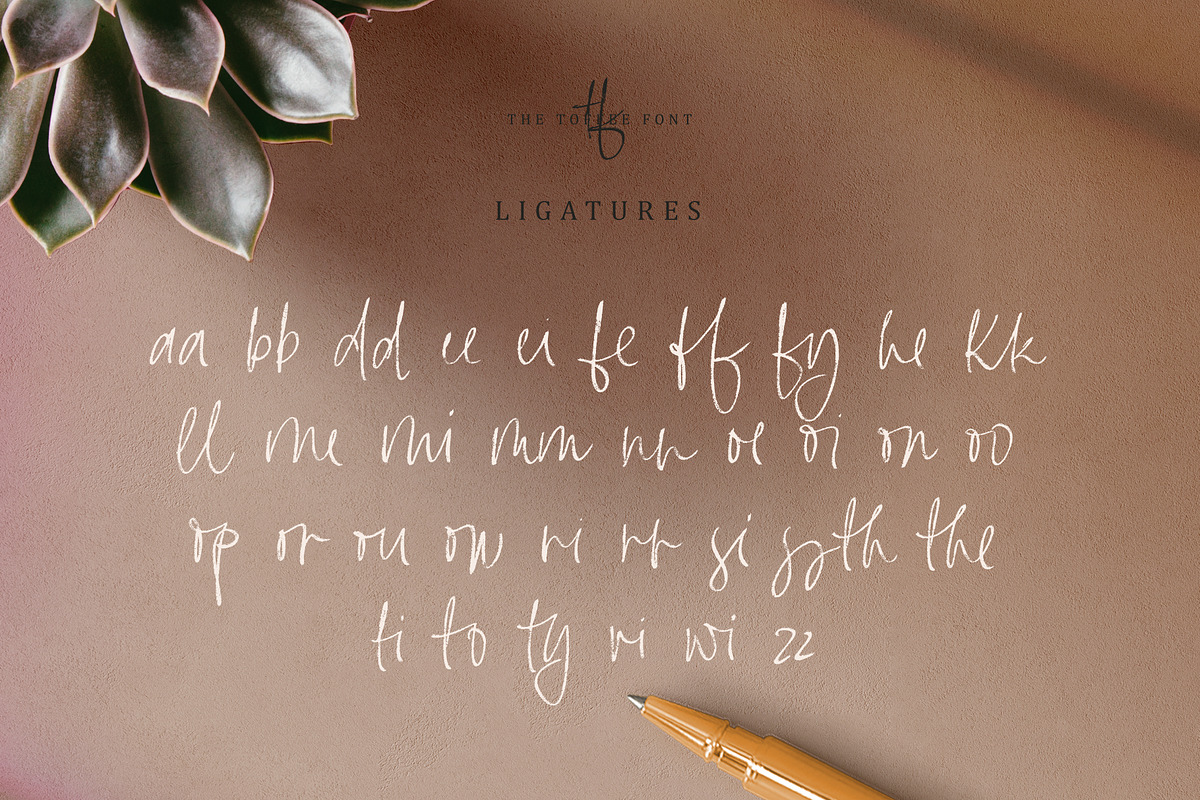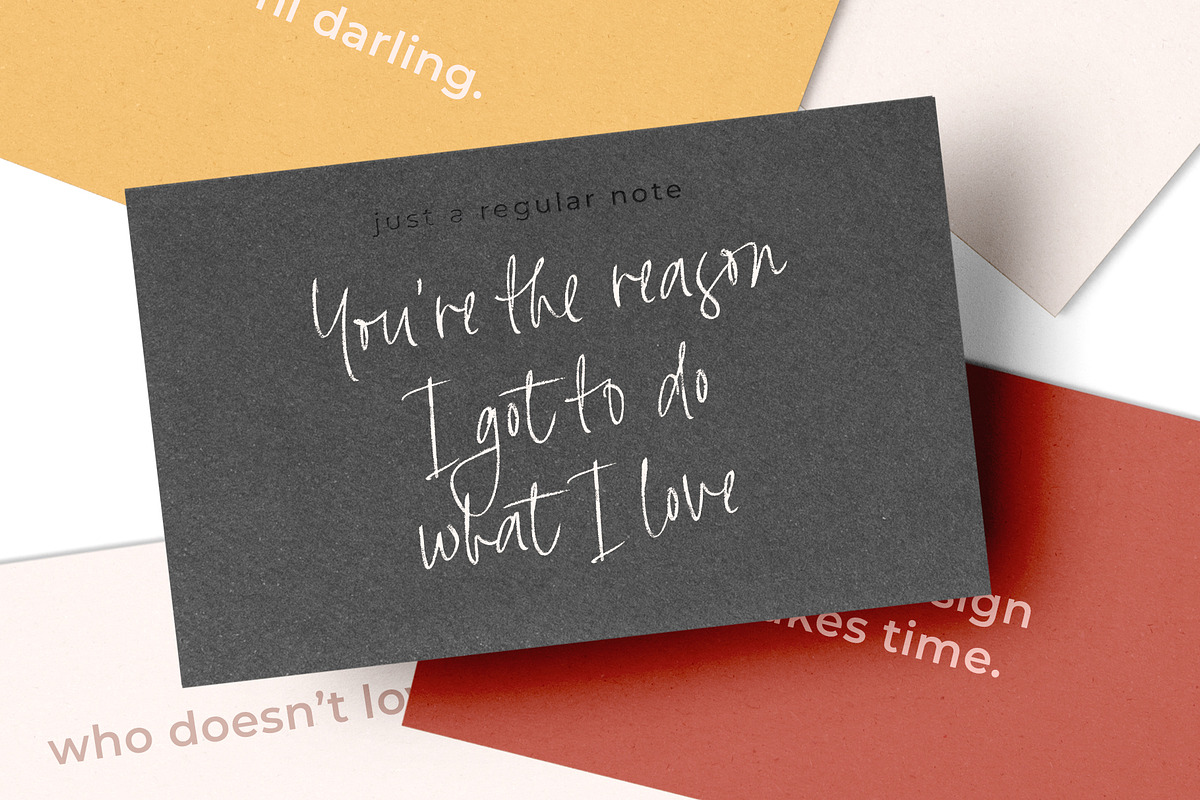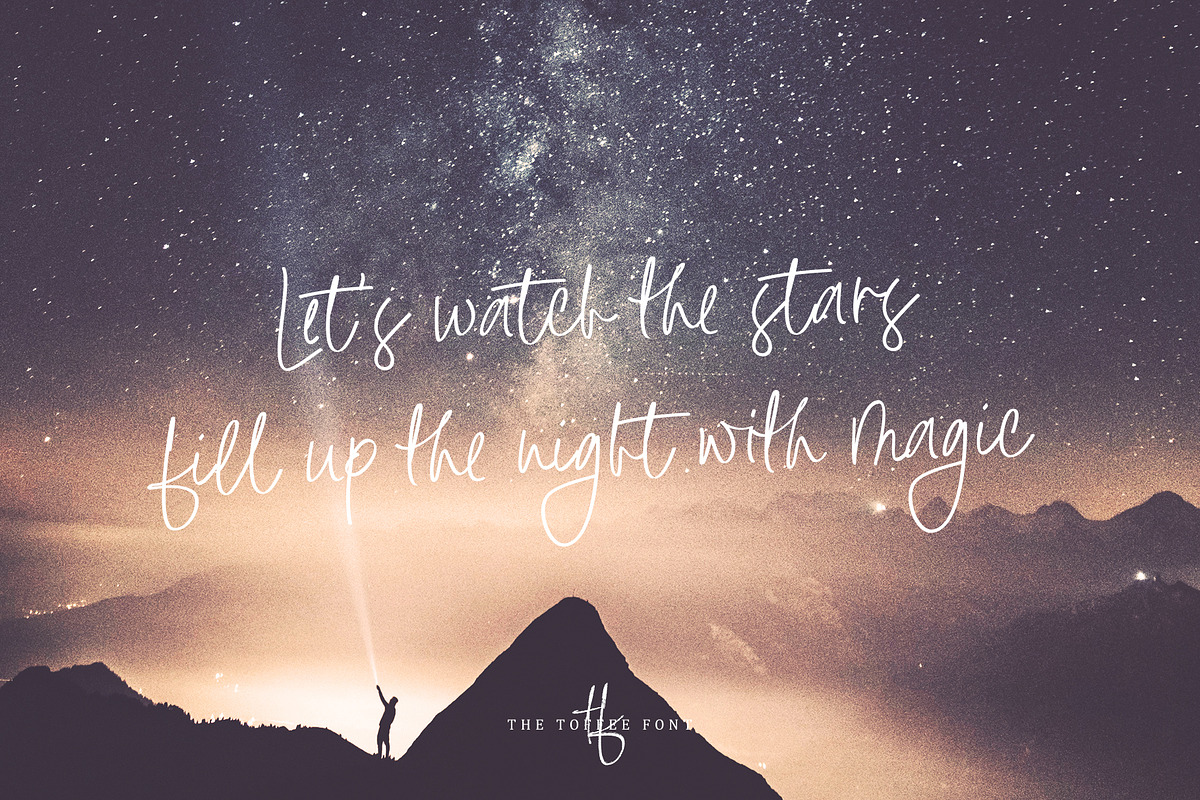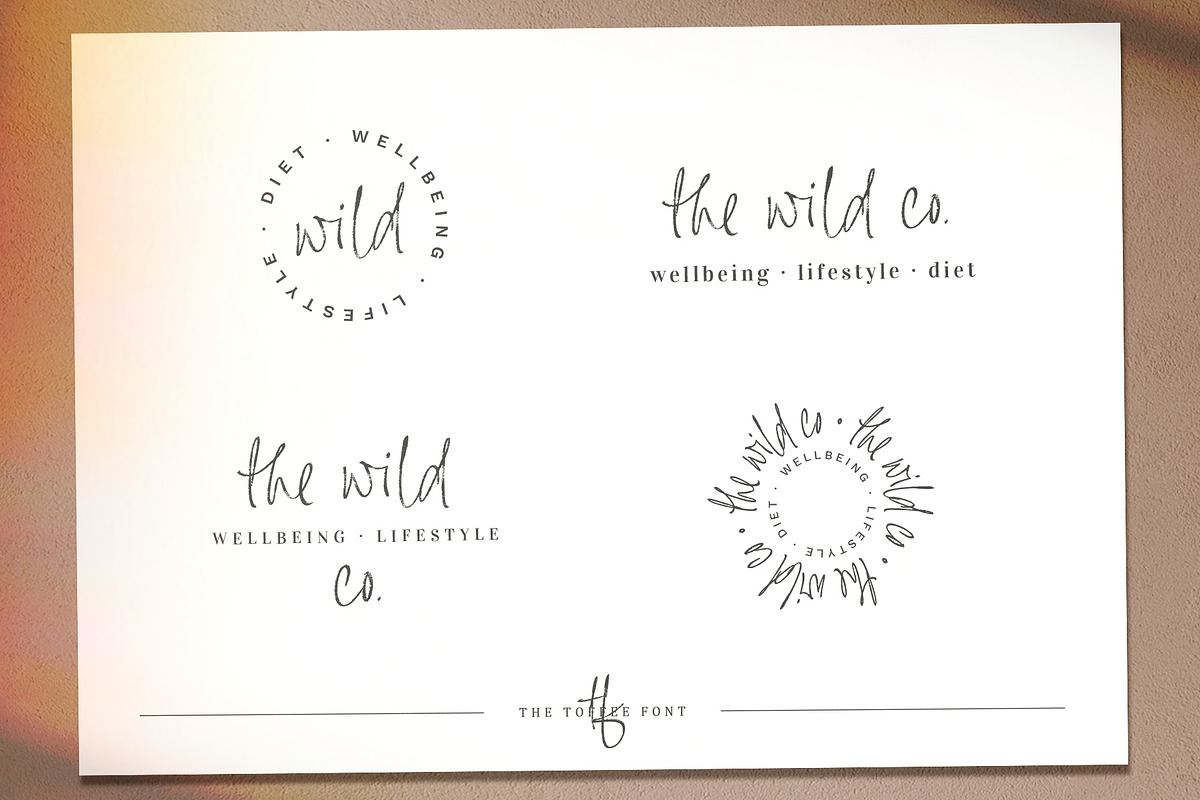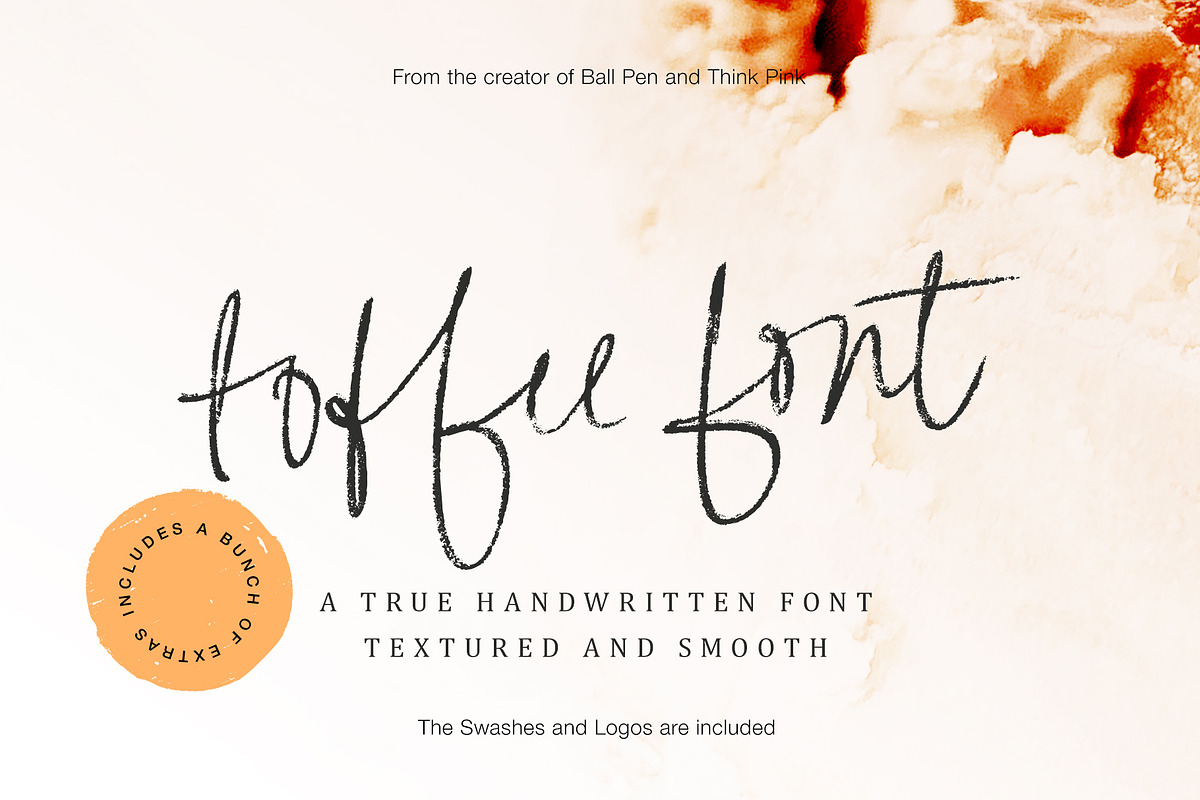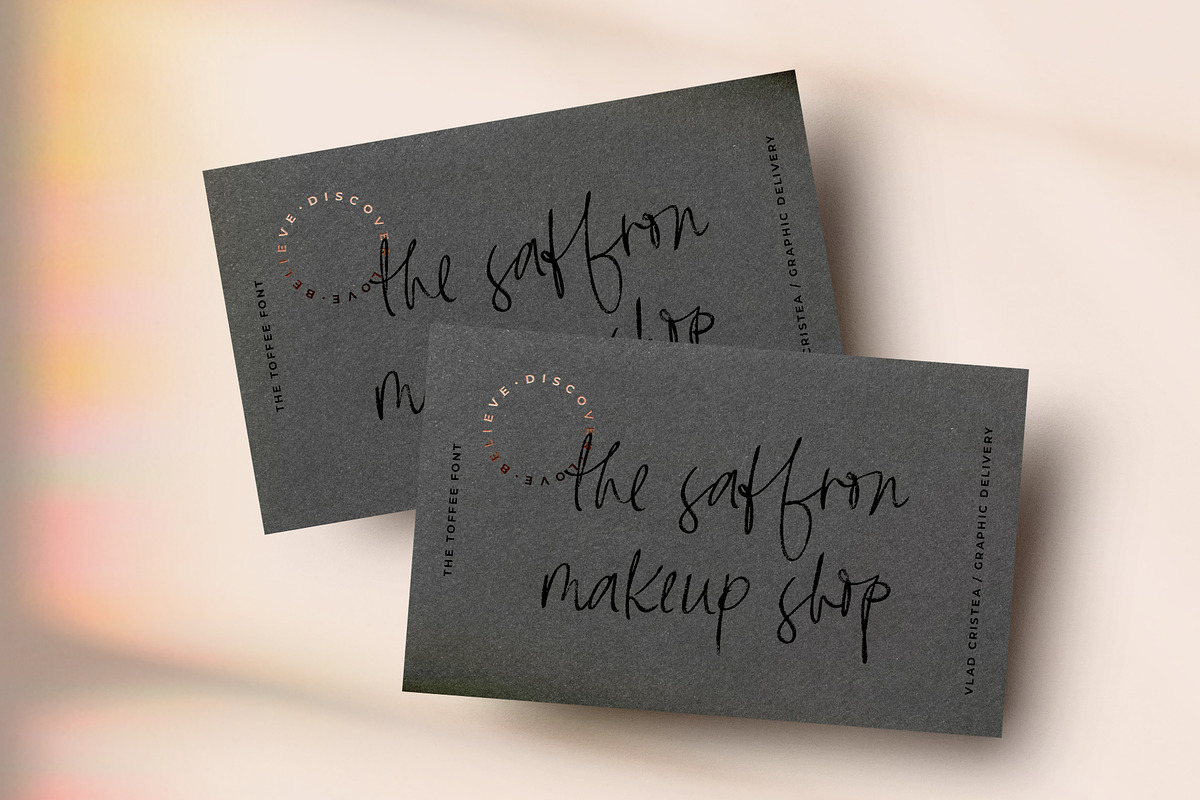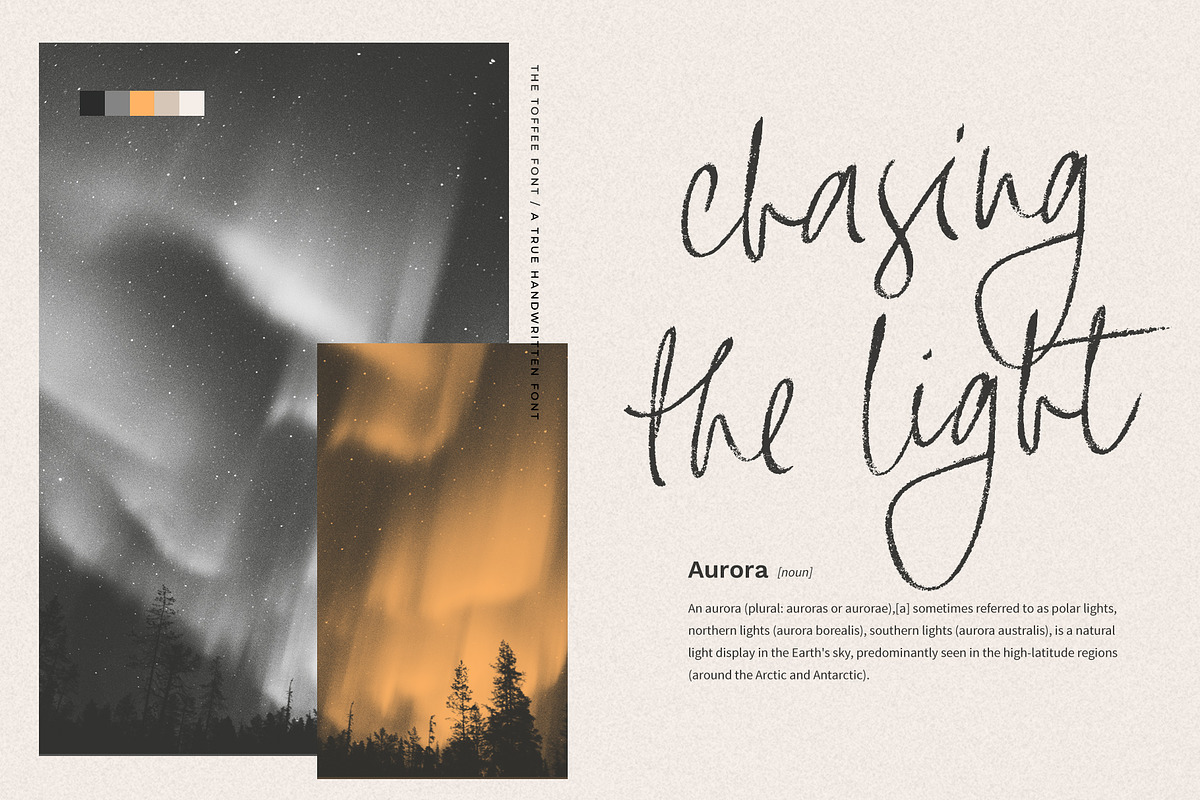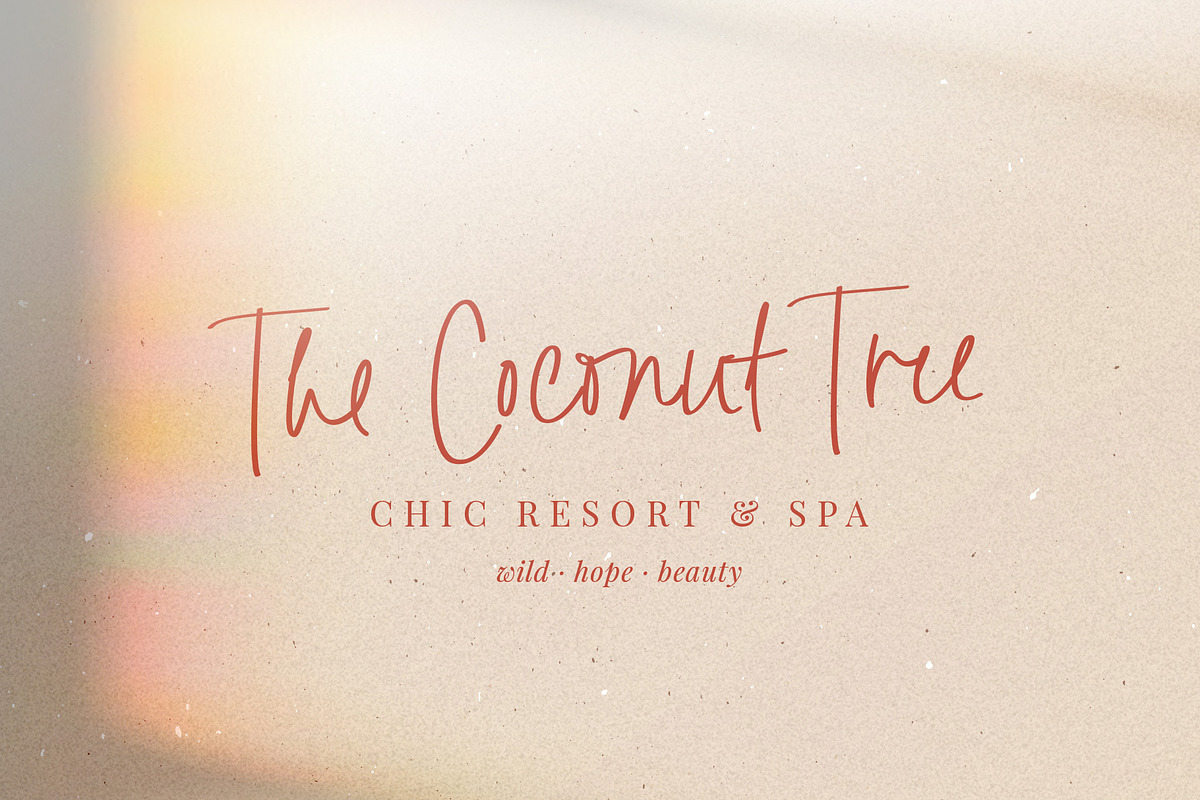
Toffee Handwritten Font & Extras
I am super, super happy to present Toffee Handwritten Font , a font that looks quite similar to my handwriting. Toffee comes in 2 versions, textured and smooth and it can be used in all design projects where you want to add a touch of natural handwriting.
Toffee Handwritten Font comes with all Western, Central and Southern European Languages and it includes a lot of ligatures to make you text look very natural.